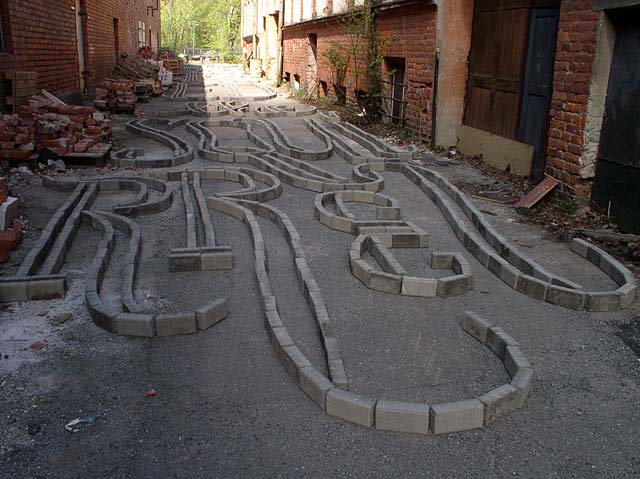
thin group and
tiny group
Last day, new day; sunshine and more bricks! The thin-group started the day with building the last word to finish their street lettering: don't feed the squirrel. The group was tired but motivated to finish their master-piece! We were also honoured to meet Mister Brick who came to give us a lection about bricks. "We want to thank you for lending us your bricks, Mister Brick!"
Because of the perspective, the lettering has to be viewed from a certain point: the balcony on the fifth floor. Posters and brick signs were made to tell people about the final product and to lead them to the balcony.
And yes, in the end we got together on the balcony. Our friend, the squirrel, wasn't partying with us - maybe he was offended of our sentence. Beer and nuts made the evening complete! It was fun, fun, fun... What could make the workshop better than hard work and a great end result!?!
There was an idea of putting candles in the open forms of the stems, in between two rows of bricks. But after experimenting with these, we found out the wind was destroying this idea. | |